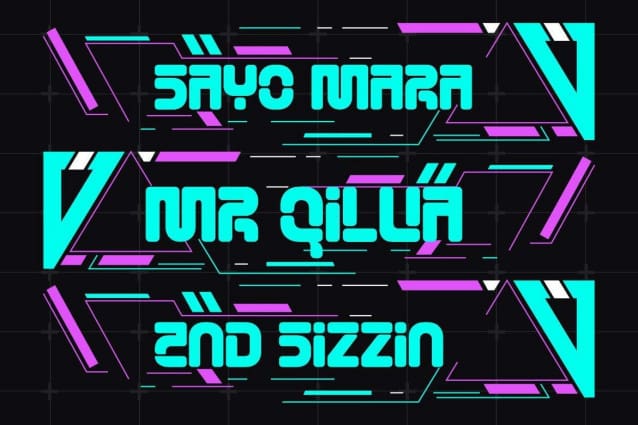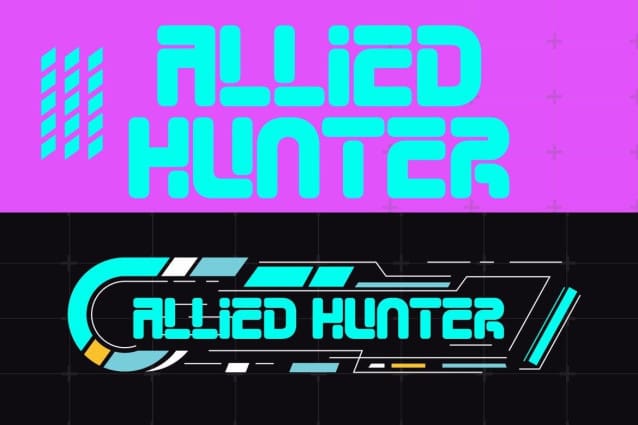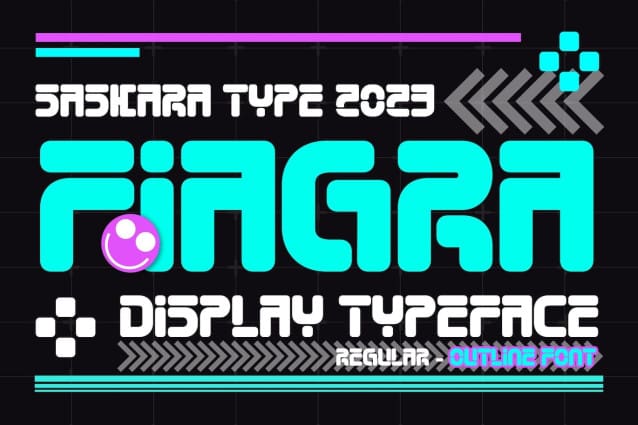
Fiagra Futuristic Font
Fiagra Futuristic Font is a cyberpunk font inspired by gaming. This font is very special because it contains two regular fonts and one outline font with a modern touch that is packaged strong and dynamic, Great Font for game logos, labels, flayers, Brochures, Signs, Pubs, Illustration Designs, , Handmade Brands, everything related to modern style, vintage style, etc.